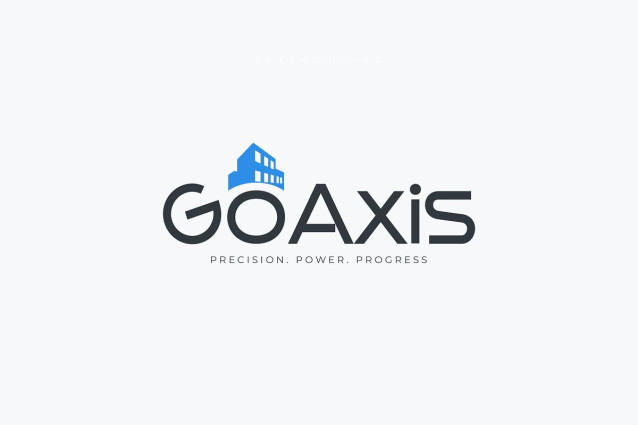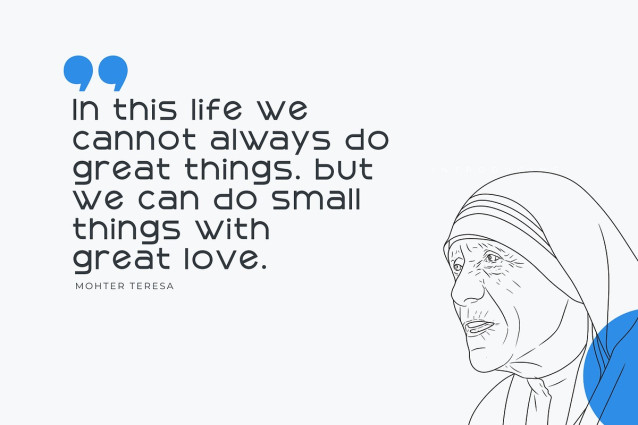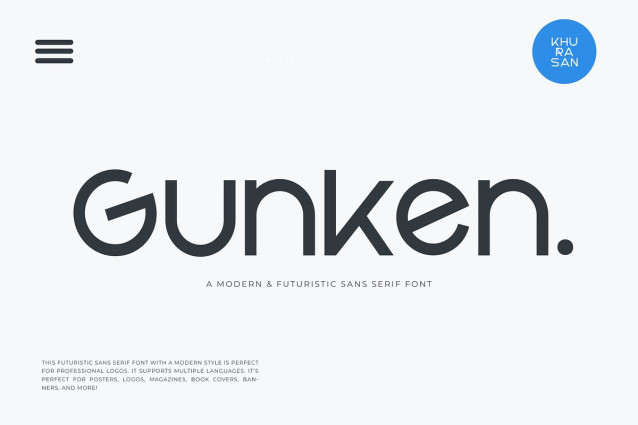
Gunken Font
Gunken Font is a clean and modern sans serif font. The smooth and light execution makes this font look sleek and elegant which is perfect for futuristic branding designs. It can easily be matched to an incredibly large set of projects, so add it to your creative ideas and notice how it makes them stand out!.
Gunken font suitable for logo, branding, greeting card, poster and any design that you create.